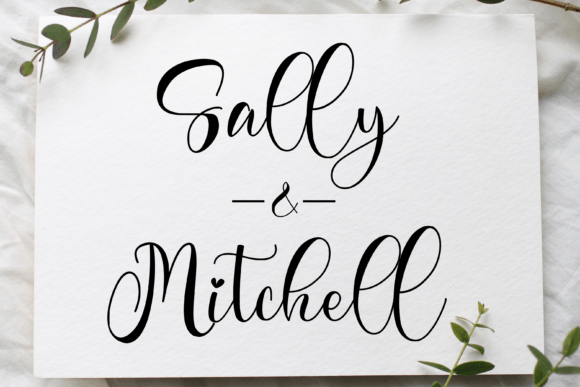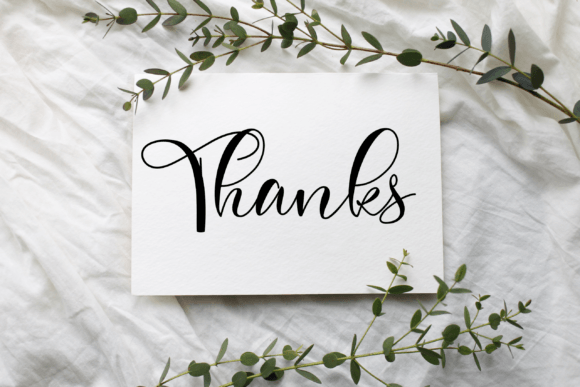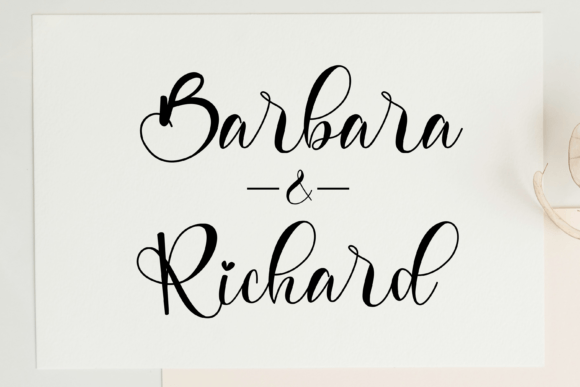
About Visually Font
Visually is a casual and fresh handwritten font. No matter the topic, this font will be an incredible asset to your fonts’ library, as it has the potential to elevate any creation.